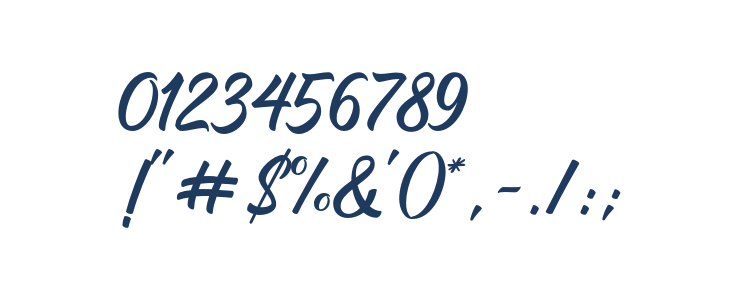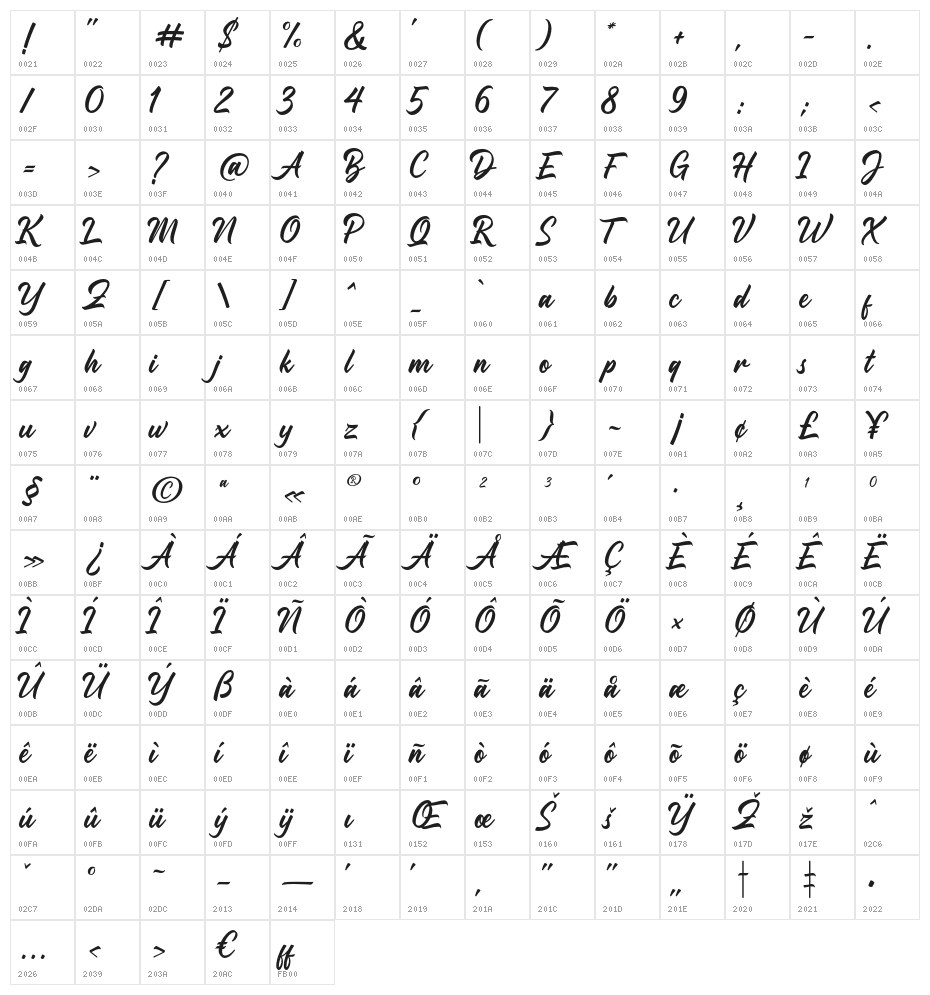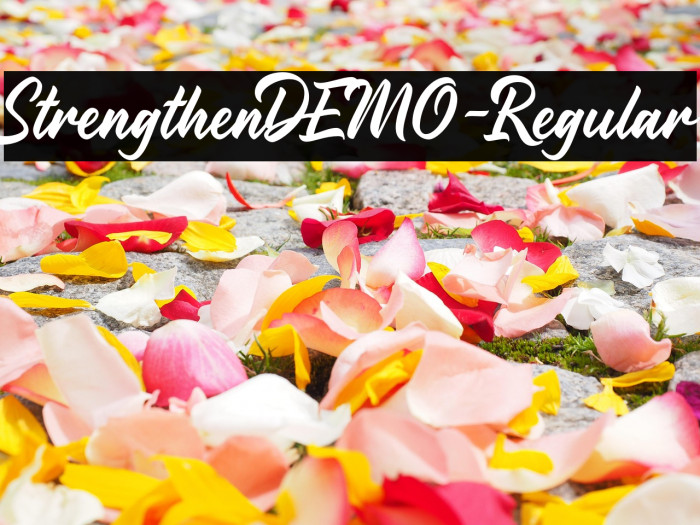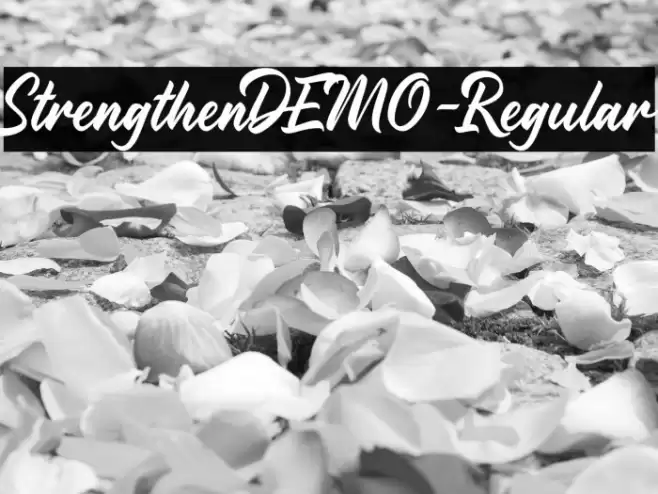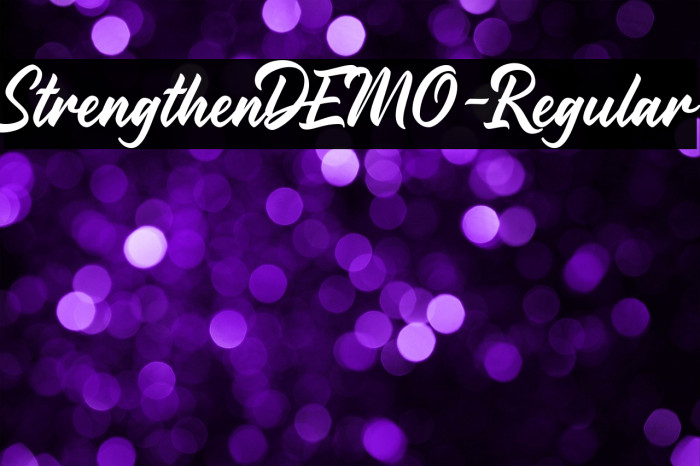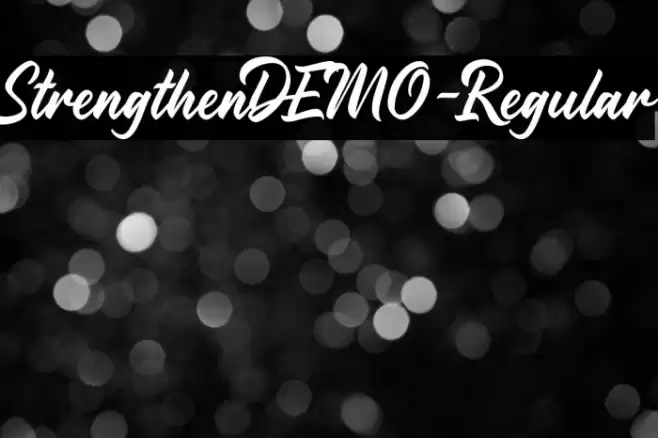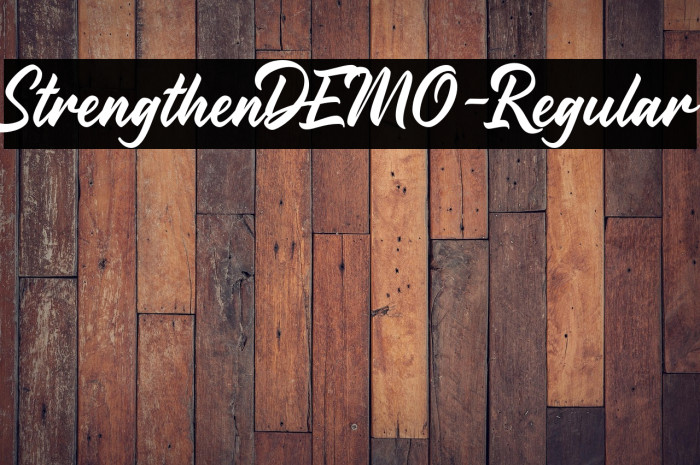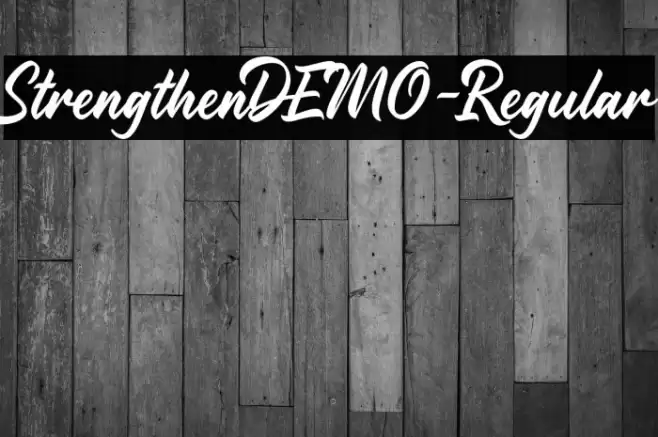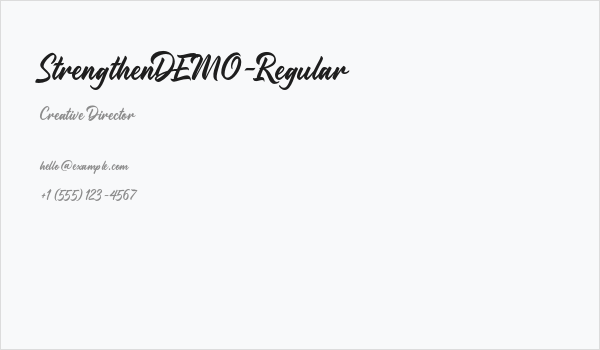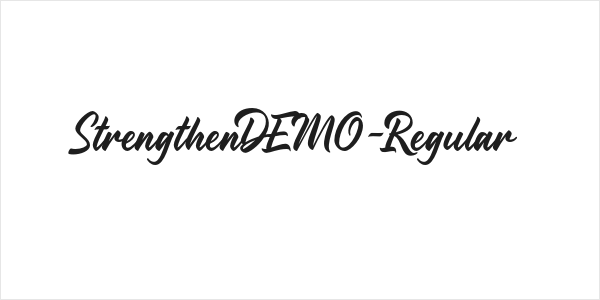
StrengthenDEMO-Regular Font
StrengthenDEMO-Regular Description
This font features a bold and expressive script style, characterized by its fluid and dynamic strokes. The letters are connected in a cursive manner, giving it a handwritten appearance. The uppercase letters are particularly elaborate, with sweeping curves and flourishes that add a sense of elegance and movement. The lowercase letters maintain a consistent style, ensuring readability while retaining the decorative flair. Numbers and special characters are designed to match the overall aesthetic, making them suitable for a variety of creative applications.
| Proposed Projects | Ideal for branding, invitations, greeting cards, and artistic projects where a personal touch is desired. |